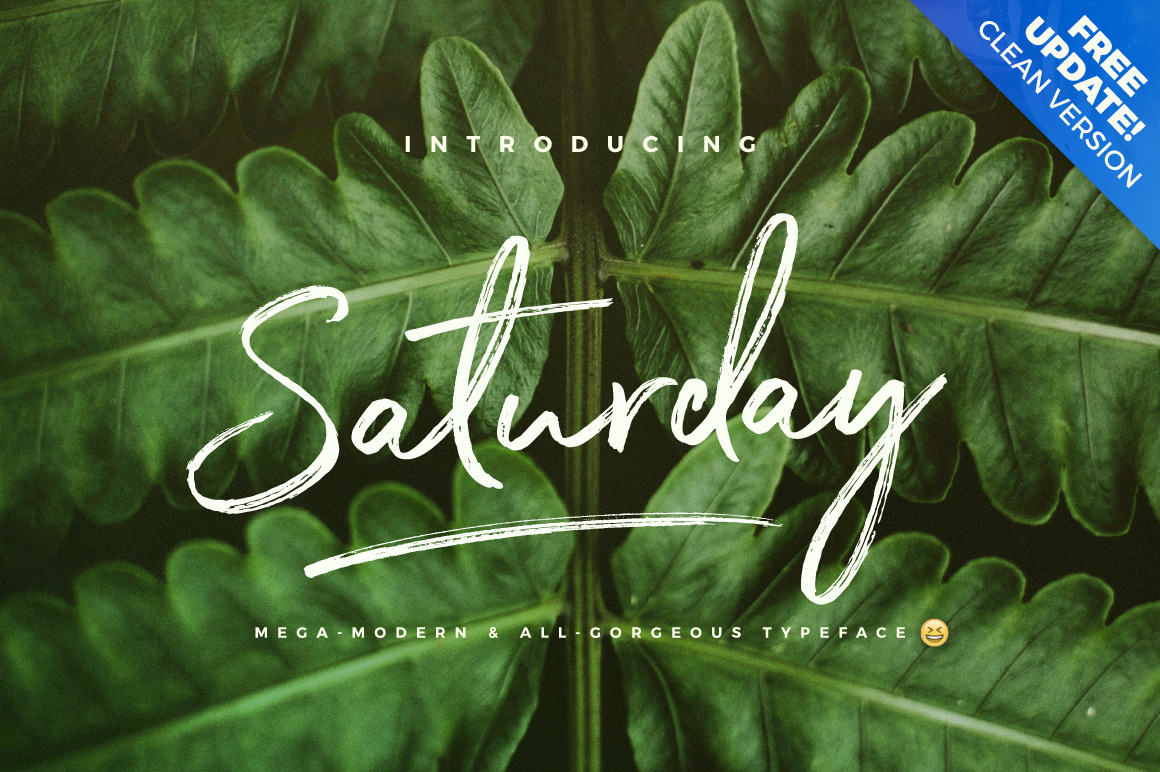
The Saturday Typeface
The Saturday Font is a mega-modern Instagram-salted ad-breaker š Use it in any design like sale-ads, logos, branding, posters, text overlays etc. This one will instantly give your project that authentic hand-drawn look to it!
On top of the all-gorgeous main font, you'll get full alternates for the lowercase characters and swashes to underline your finesse designs!
I've added a clean, full of ink, version of this font for anyone who loves to make smaller prints like business cards, wedding invitation and greeting cards! If you've already purchased the font, just download and install the clean version for maximum design-impact! š